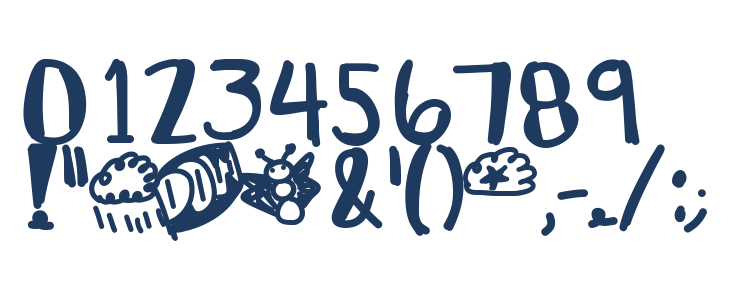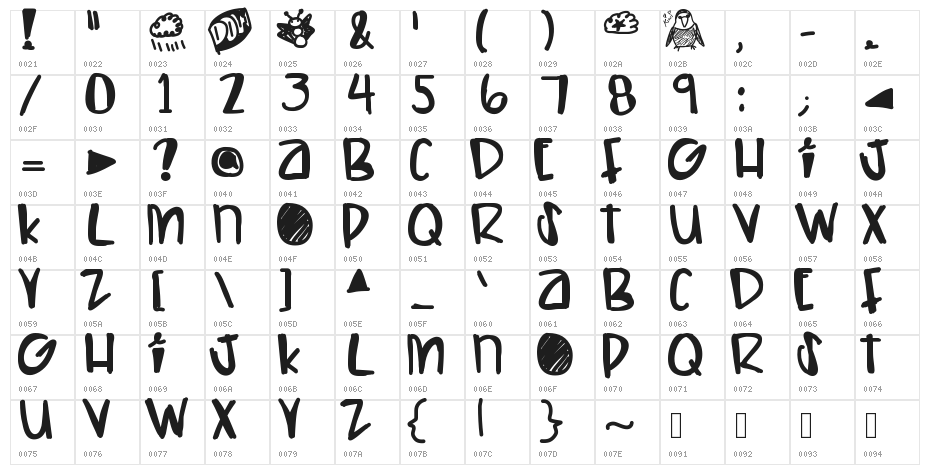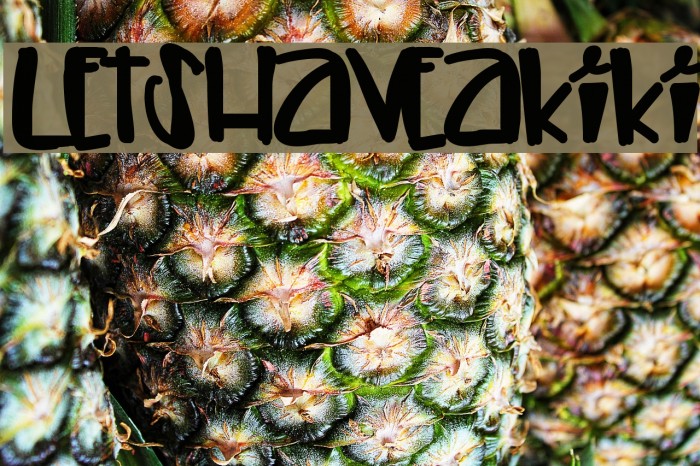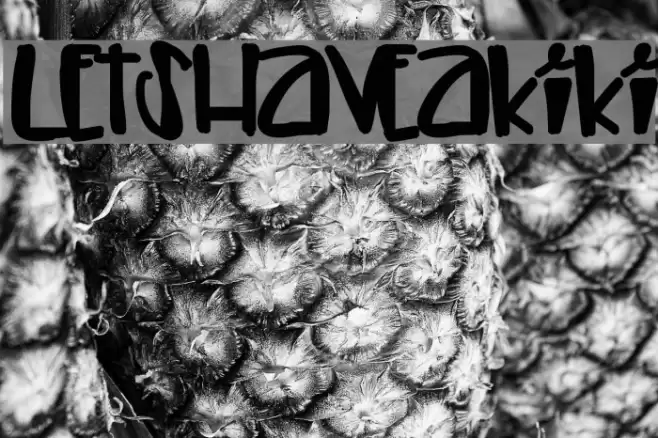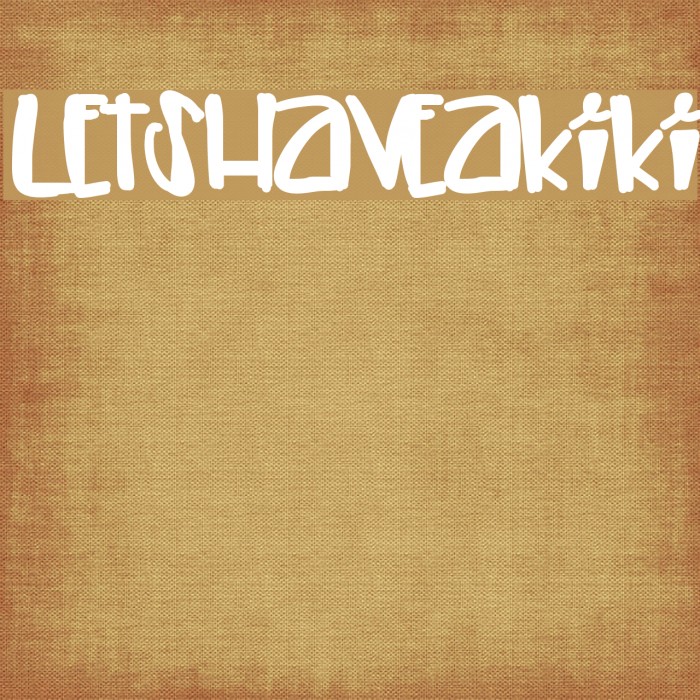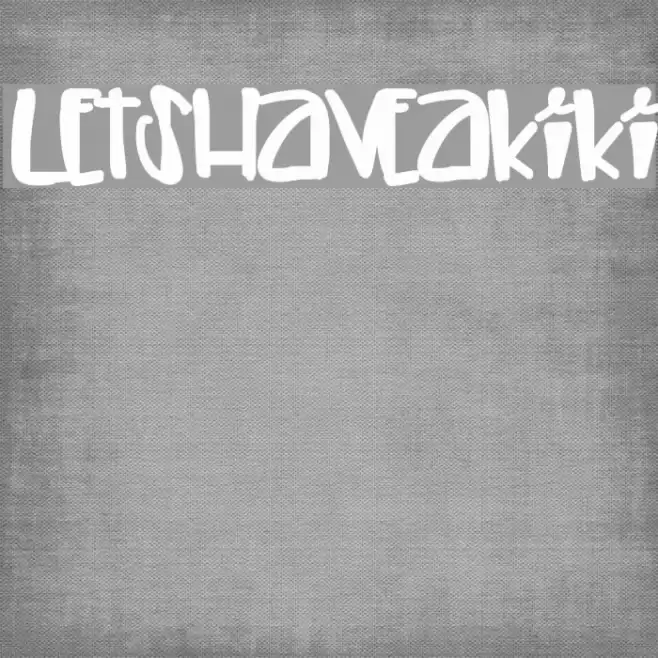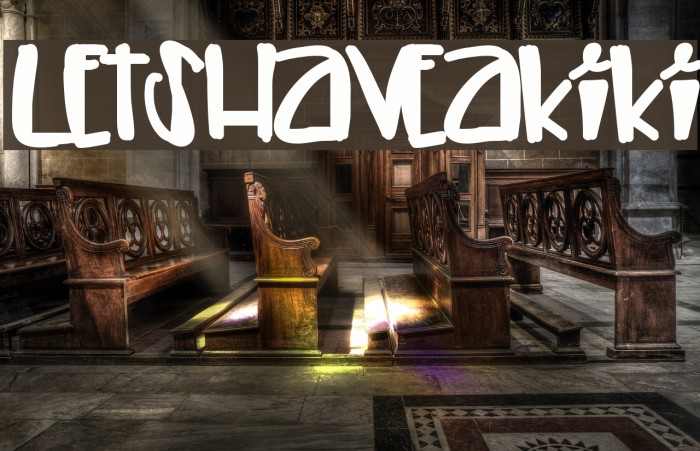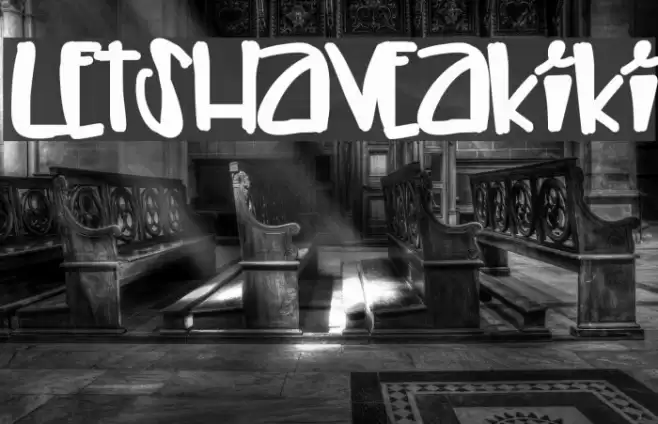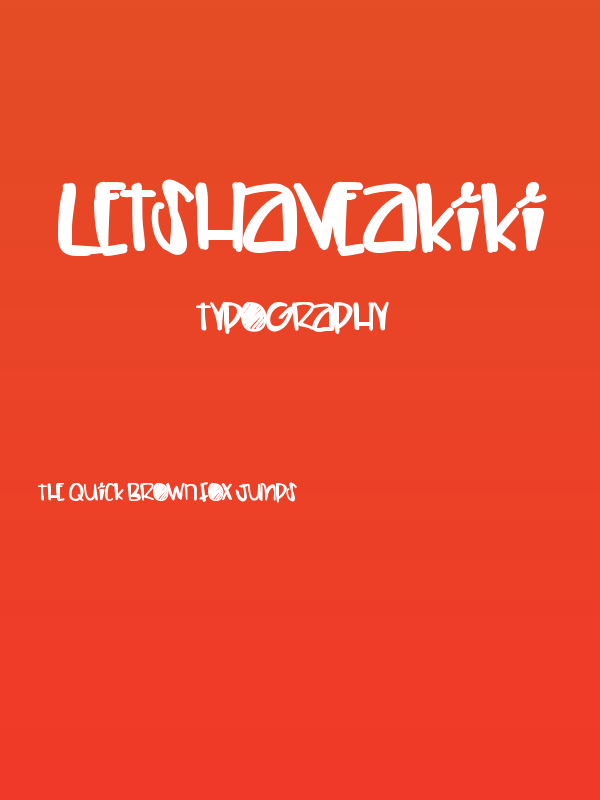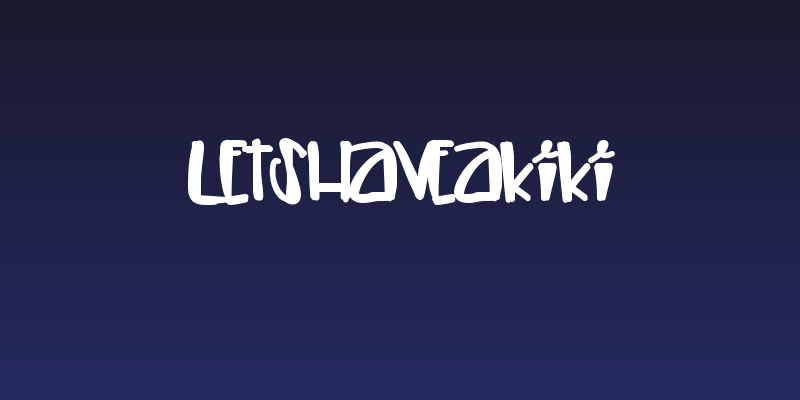
LetsHaveAKiki Font
LetsHaveAKiki Description
This font features a playful and bold handwritten style, characterized by its thick strokes and casual appearance. The letters are slightly slanted, adding a dynamic and energetic feel. The uppercase and lowercase letters maintain a consistent style, with rounded edges and a slightly irregular baseline, enhancing its informal look. The numerals and special characters follow the same playful design, making it suitable for creative and fun projects. The overall appearance is lively and engaging, perfect for capturing attention.